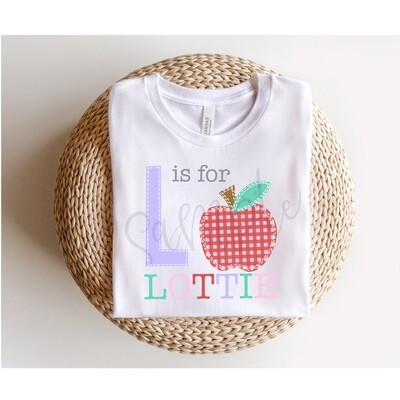
(1) Hand drawn alphabet set (letters A through Z) in lavender
Each image in this set includes a letter of the alphabet with the addition of the words, "is for", along with an apple.
A name can be added below the image to complete the look. See the second photo for an example of how you can personalize the image The font used for the name in the example photo is called American Typewriter.